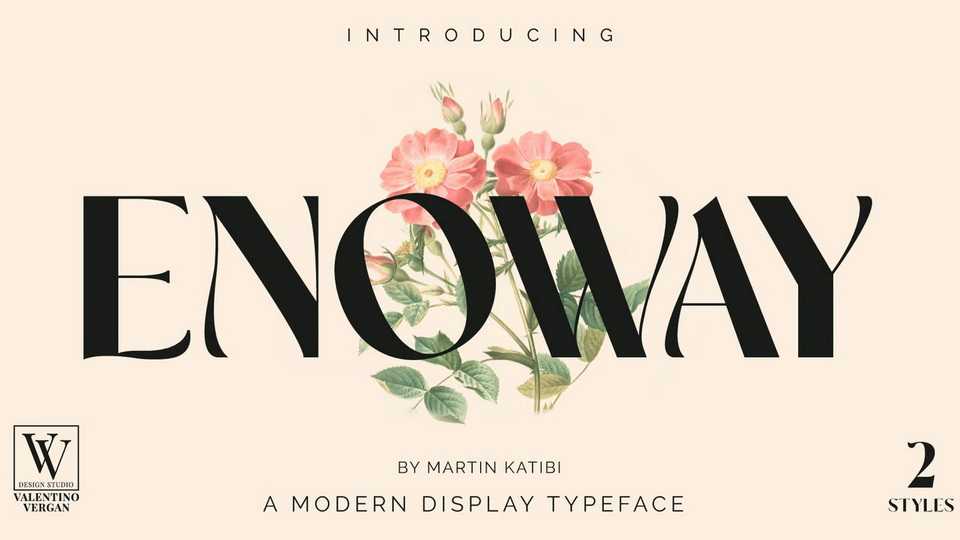
Download Enoway font , a modern elegant typeface, which leans towards the Neue Nouveau style. Enoway typeface has a high-contrast and a thin hairline, this gives the typeface a modern but nostalgic look.
Designer: Valentino Vergan